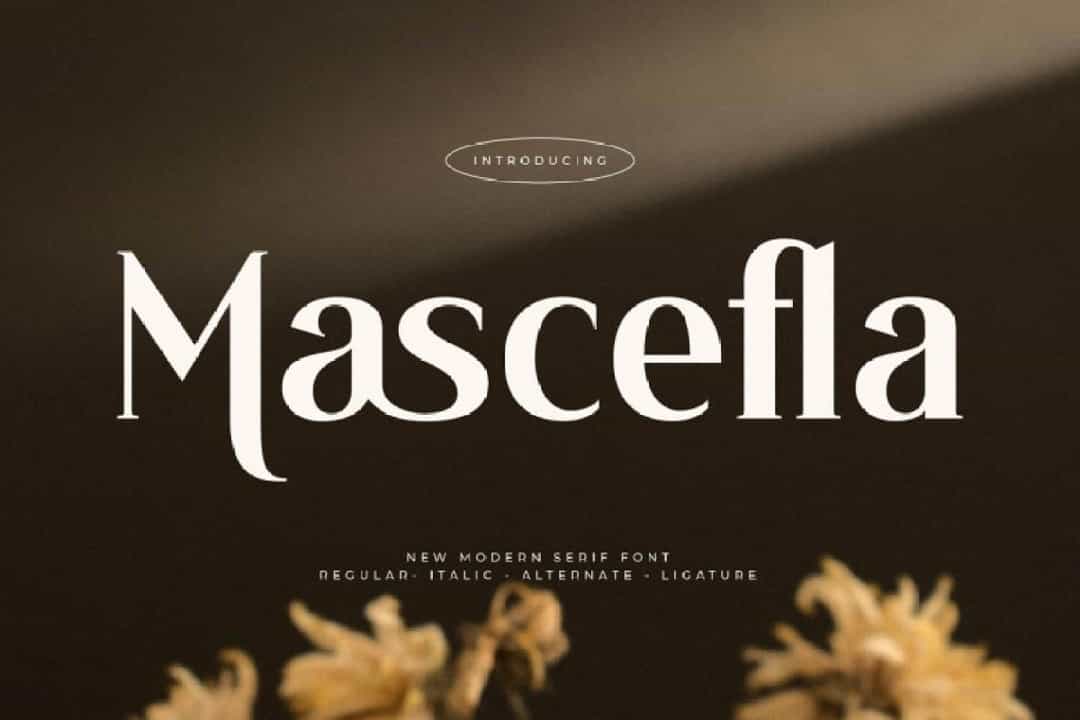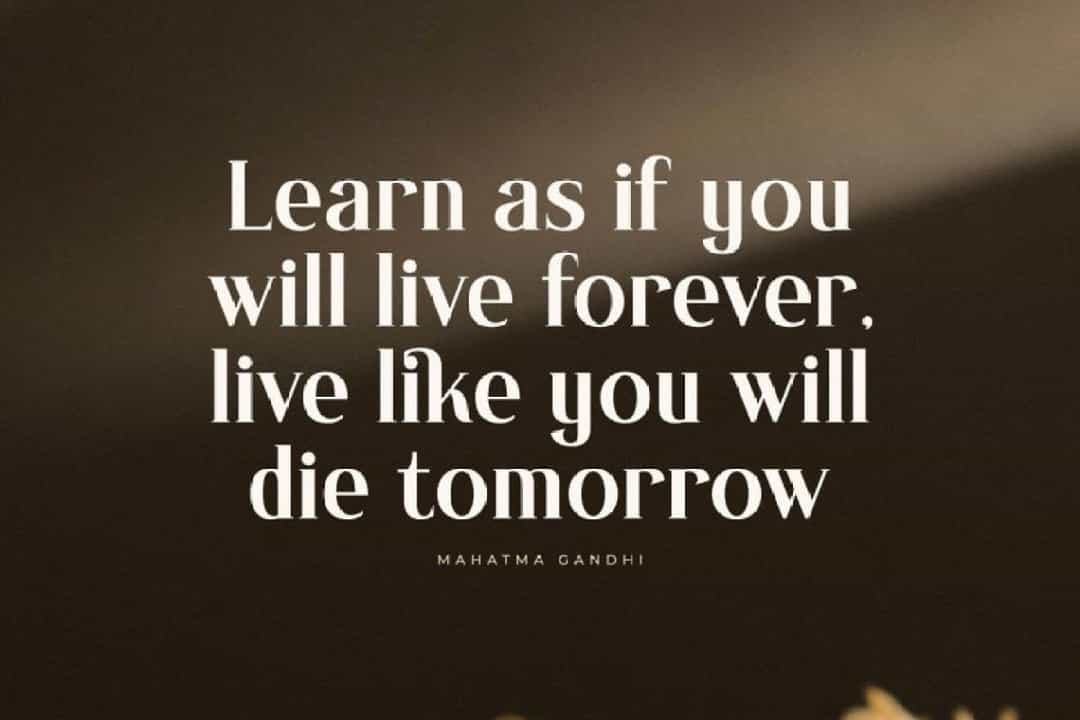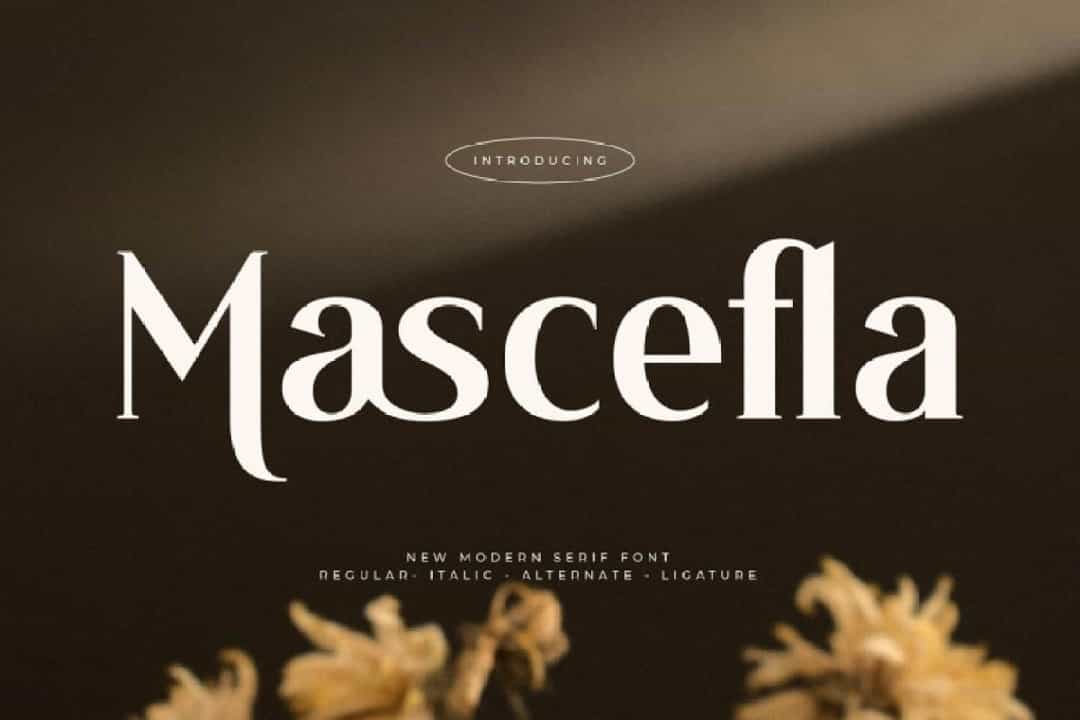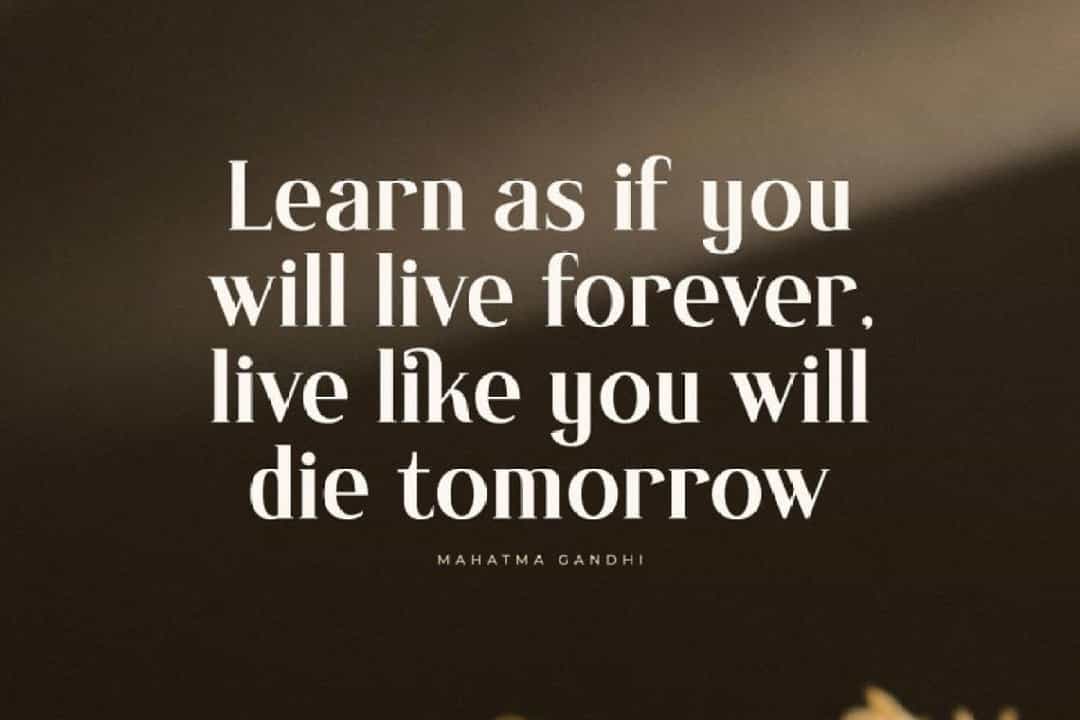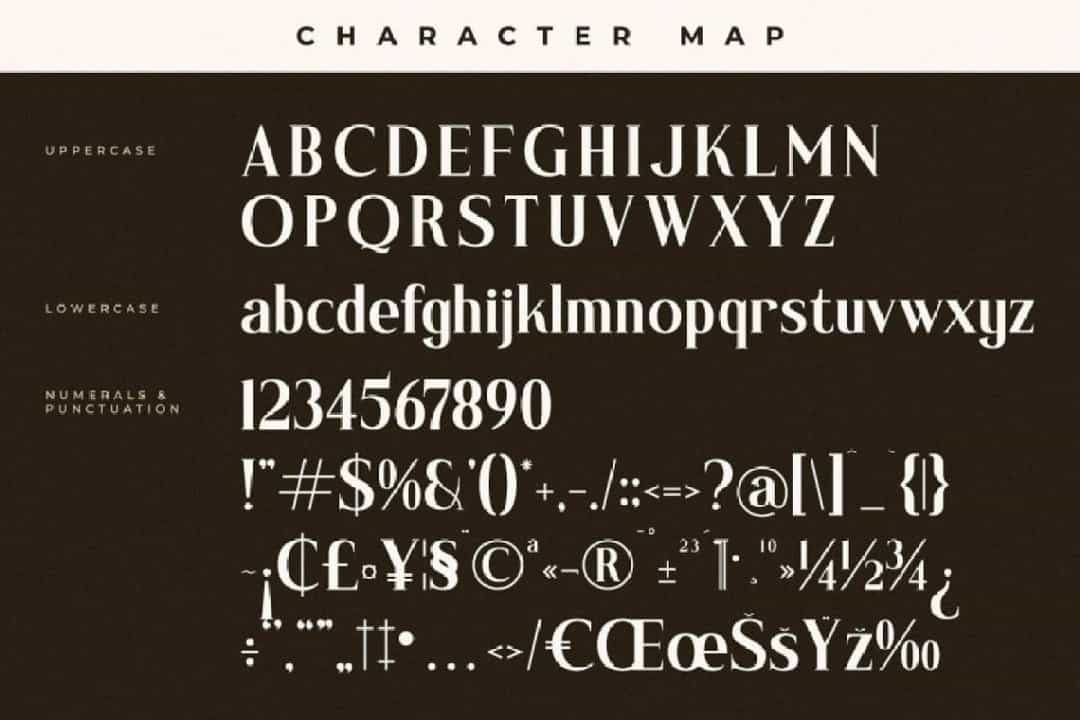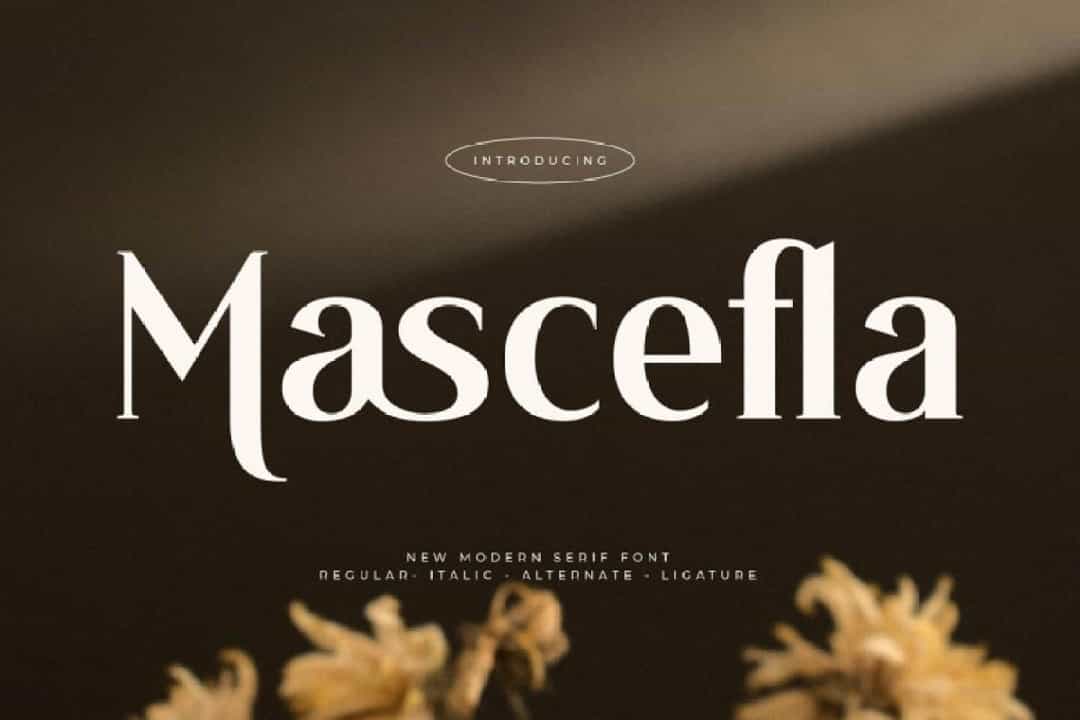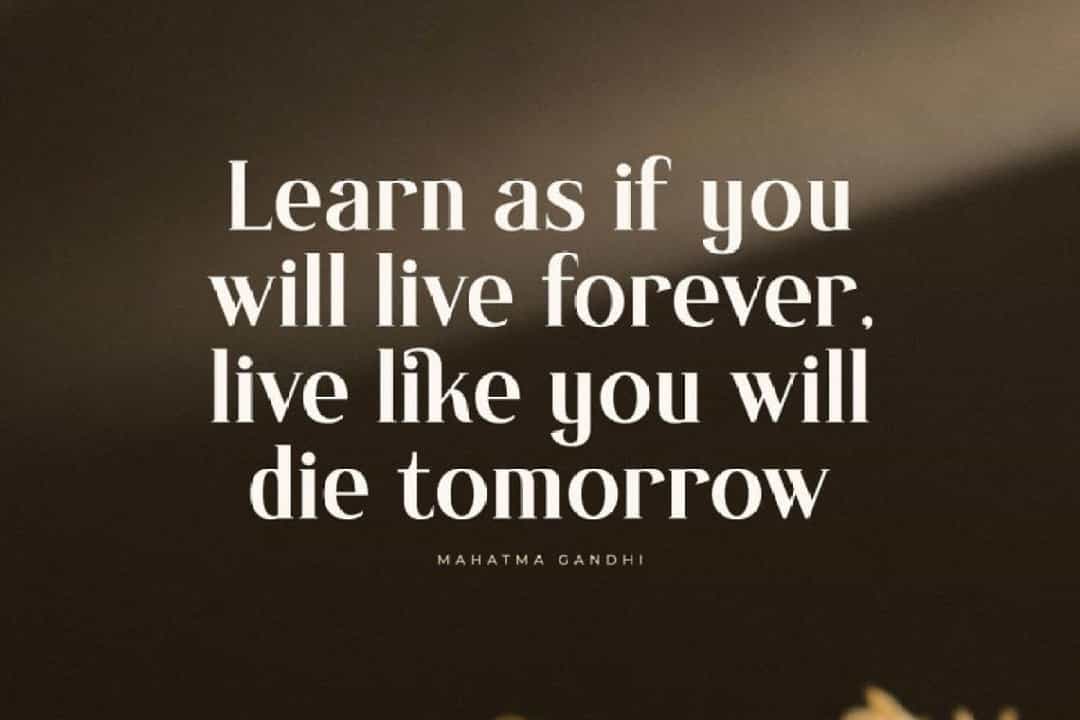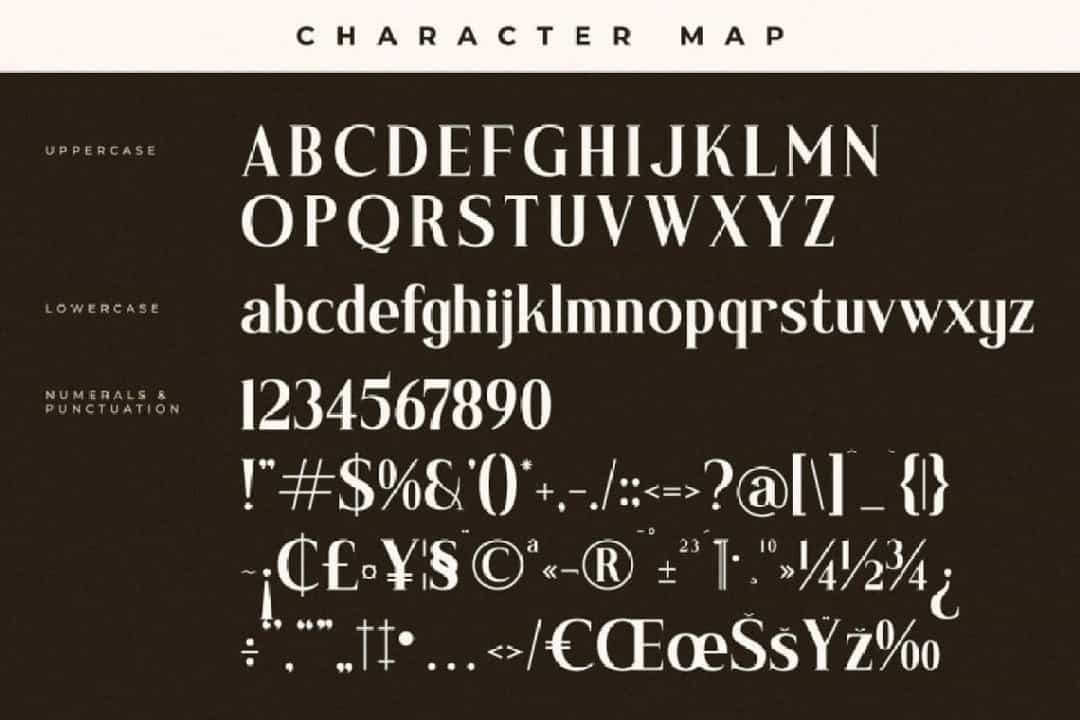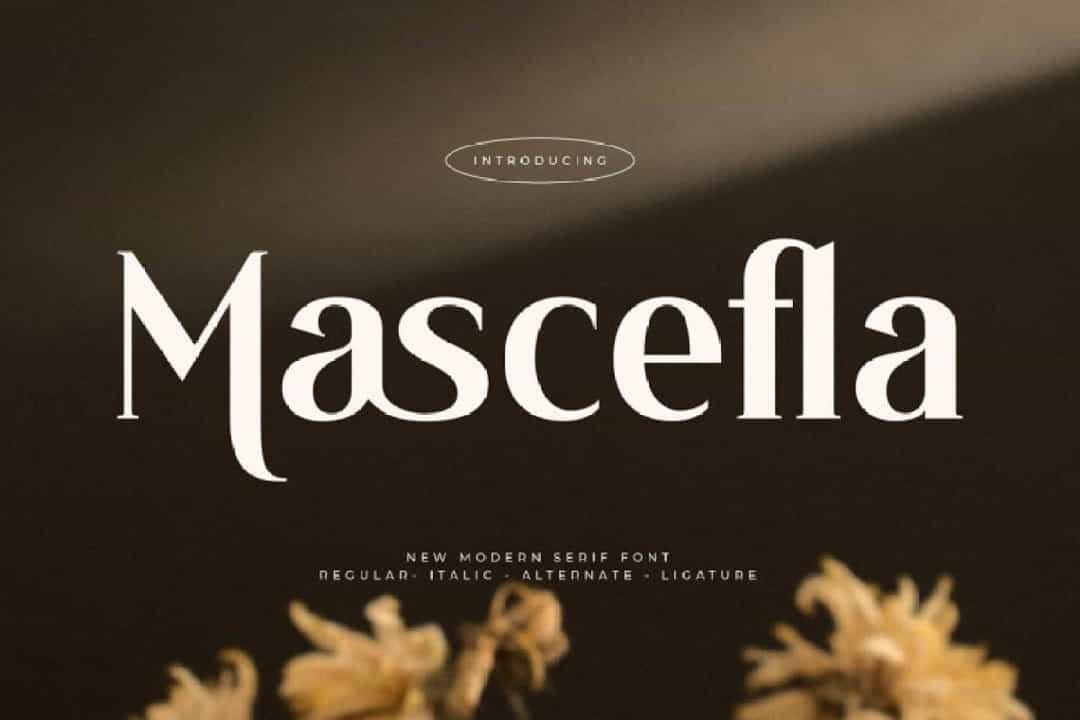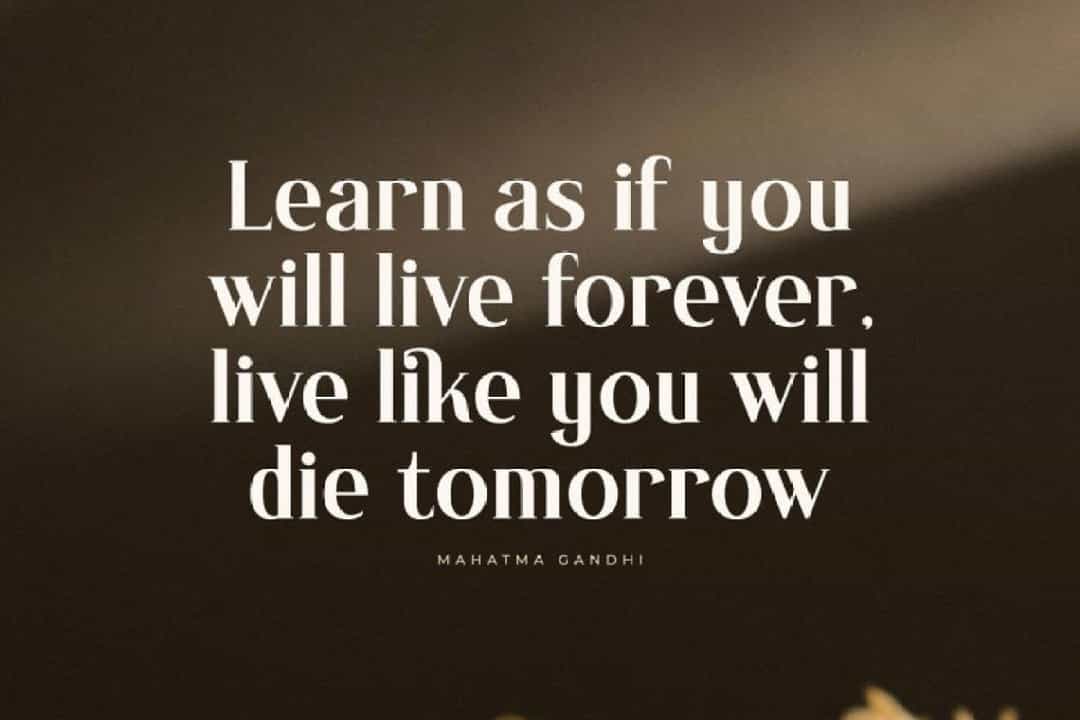
Mascefla is an elegant serif typeface ideal for logos, branding designs and homeware designs, packaging of products such as mugs quotes bags for shopping T-shirts book covers name cards invite cards greeting cards labels photography watermark special occasions photography or any project that calls for luxury serif typeface.